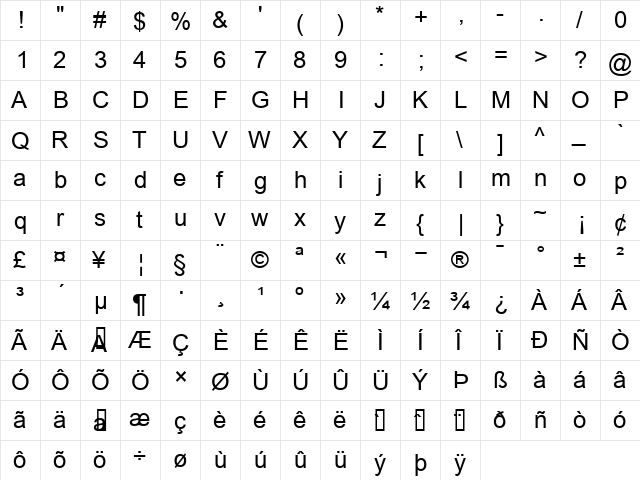
NunacomU Regular
Design Context for NunacomU Typeface
NunacomU offers clean, dependable letterforms without strong stylistic allegiance, making it a practical choice for designers who need flexibility.
Pro Tip: Pair NunacomU with a font of contrasting weight or personality to build a more expressive typographic hierarchy.